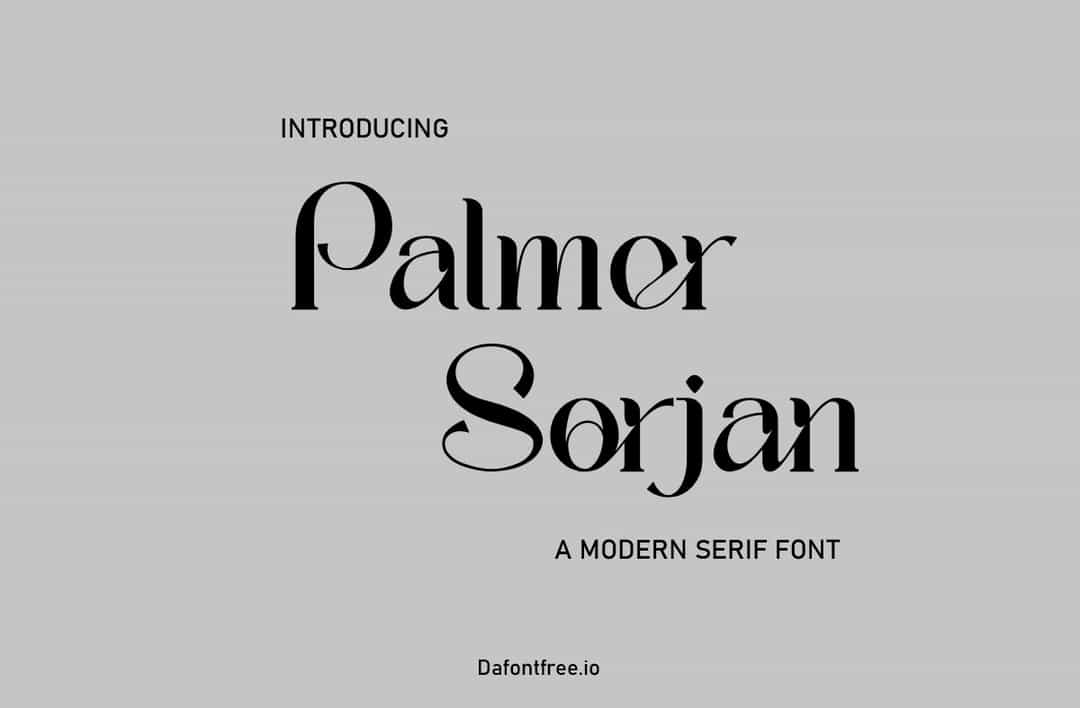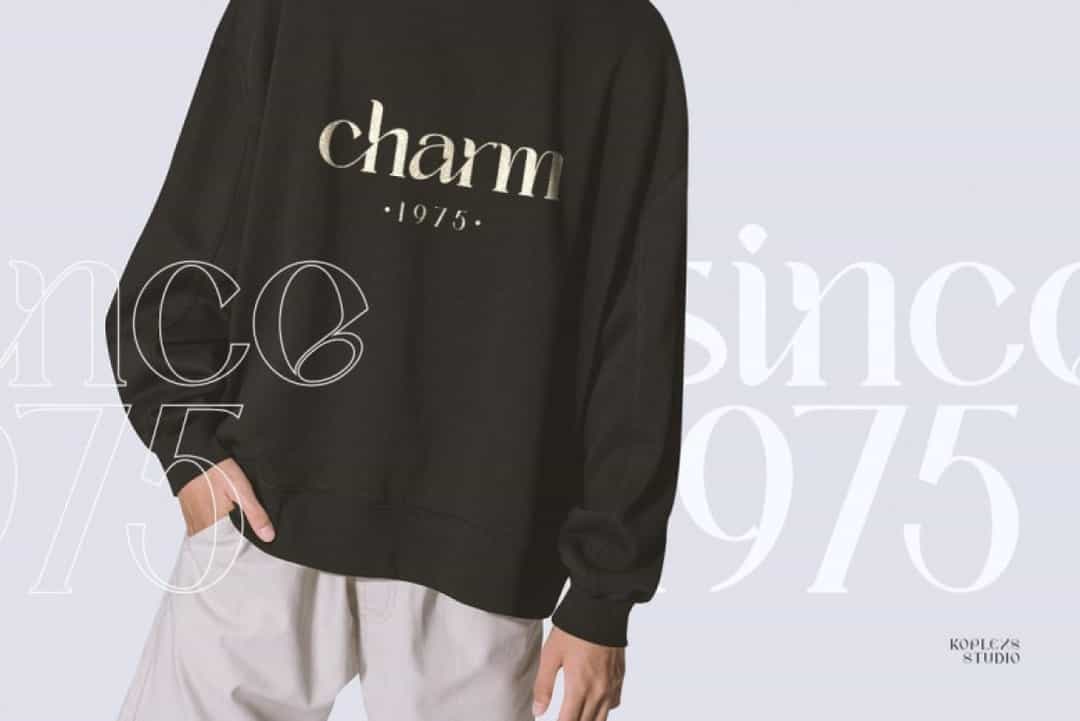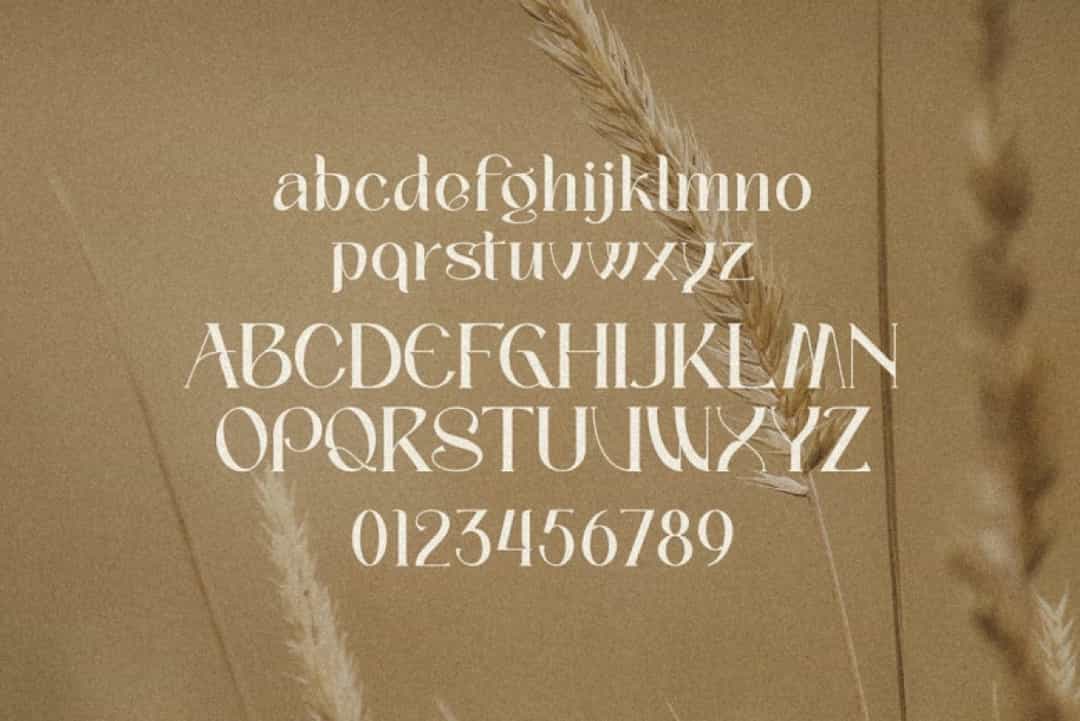
Palmer Sorjan – Palmer Sorjan is an exquisite modern Serif Typeface featuring beautiful thematic ligatures, an original alternative font, multilingual support, elegant kerning and classy characters to bring distinctive style to every design or branding need.